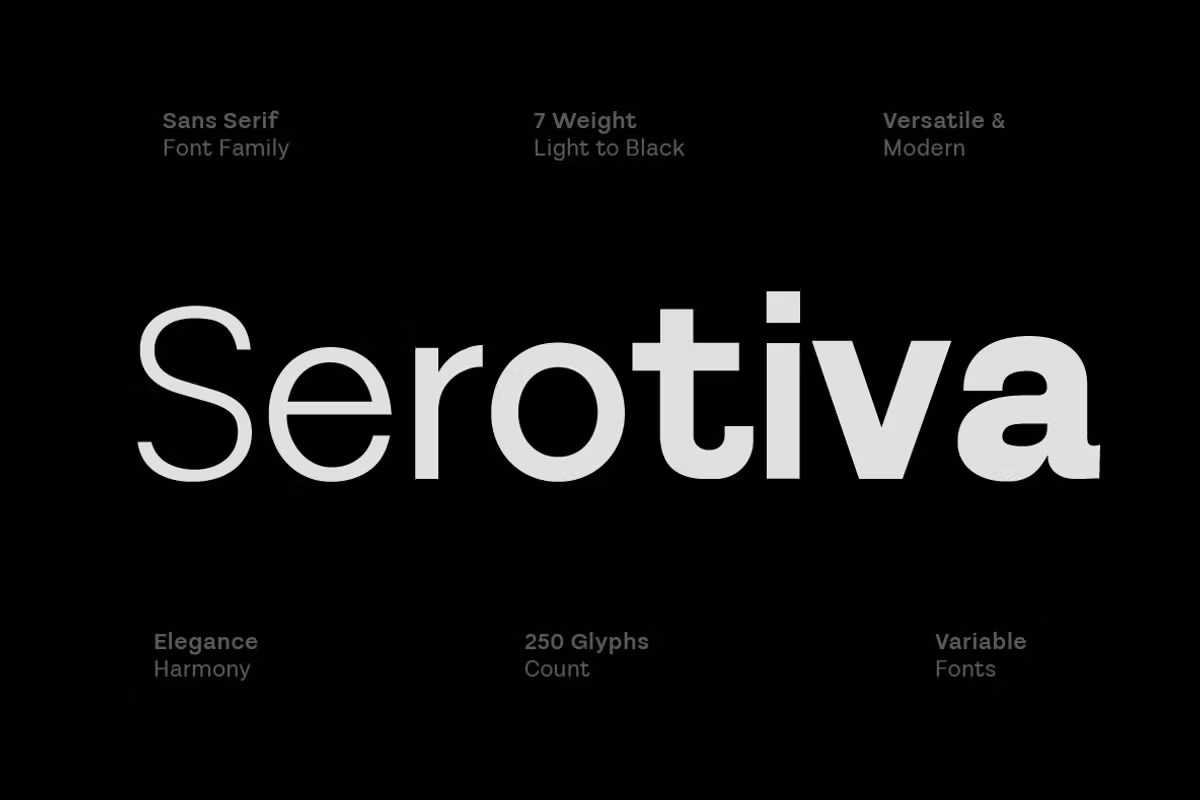
Serotiva Sans Serif Free Download
Serotiva Sans Serif Font Free Download is a clean, modern typeface that combines minimalism with a subtle elegance—perfect for contemporary design needs. Please note: you must purchase this font for commercial use, but you can test it through a free download. With its sleek lines, balanced letterforms, and versatile aesthetic, Serotiva is ideal for branding, packaging, editorial layouts, web design, and minimalist logos.
This sans serif font is designed to deliver clarity and sophistication, making it a reliable choice for both digital and print applications. Whether you’re crafting a bold headline or a refined product label, Serotiva Sans Serif Free Download brings simplicity and style to your typography. It’s fully compatible with Adobe Illustrator, Photoshop, Canva, and other major design tools, ensuring smooth integration into any workflow. Download it today for personal use and elevate your designs with the modern elegance of Serotiva.